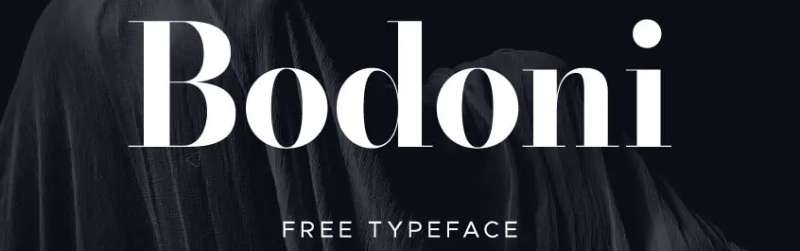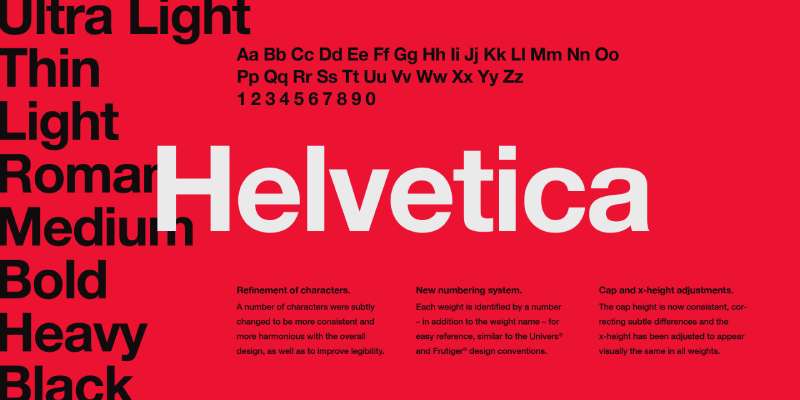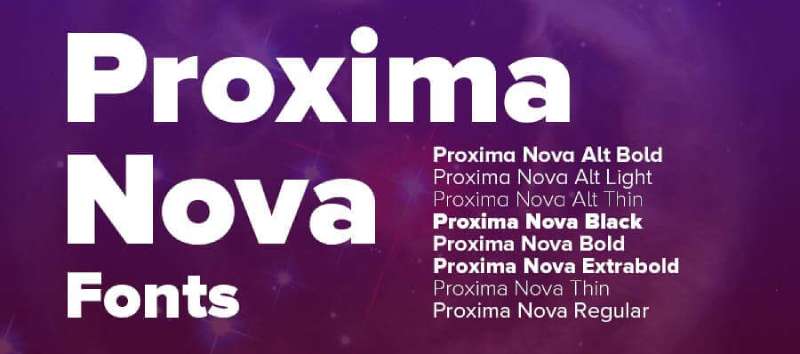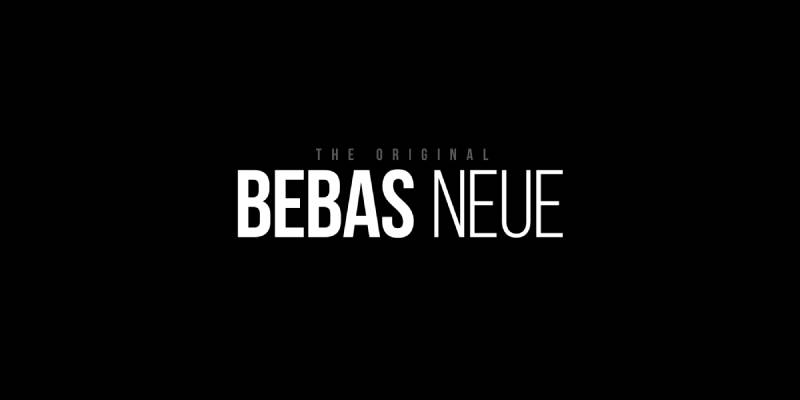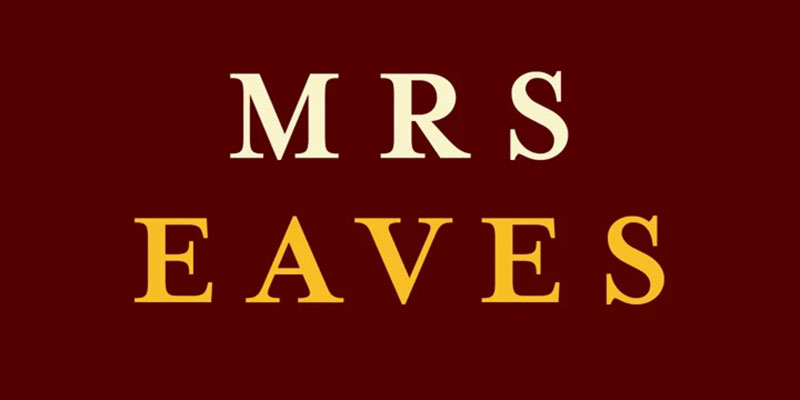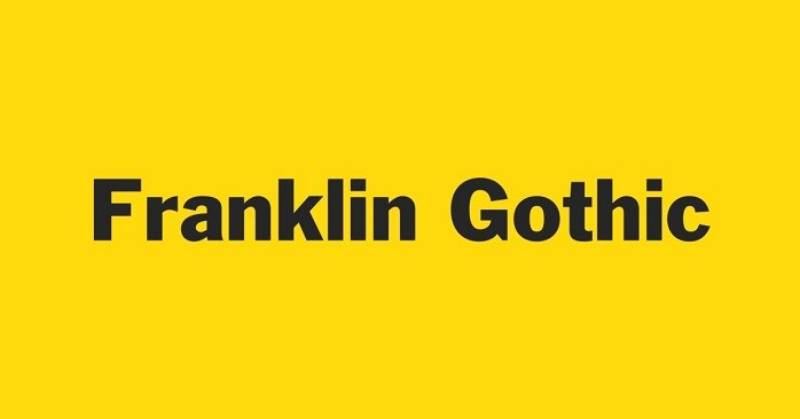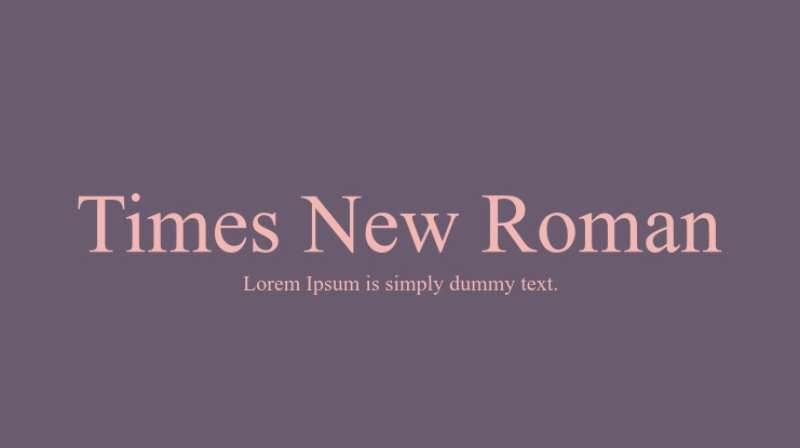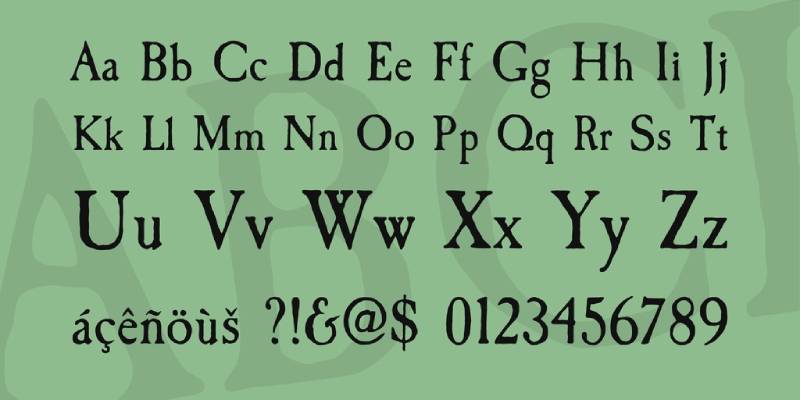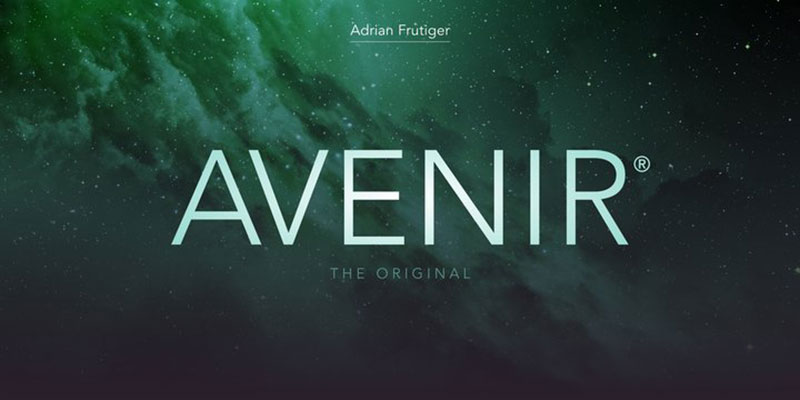
A single typeface choice can make readers flip past your magazine cover or stop and pick it up. That’s the reality of editorial design.
Finding the best magazine fonts means balancing readability, personality, and print performance. Whether you’re designing a fashion publication or a news weekly, your typography decisions affect everything from the masthead to body text.
This guide covers serif and sans-serif options that actually work in print. You’ll learn which typefaces top designers trust for headlines, which fonts handle small text well, and how to pair them effectively.
We’ll look at classics like Garamond and Bodoni alongside modern choices like Gotham and GT Sectra.
The Best Magazine Fonts
| Font Name | Classification & Best Use | Key Characteristics | Readability Context |
|---|---|---|---|
| Didot | Serif, Display Headers | High contrast, dramatic hairline serifs, vertical stress | Large sizes, luxury fashion |
| Bodoni | Serif, Display Headers | Extreme thick-thin contrast, geometric serifs, elegant | Headlines, premium editorial |
| Helvetica | Sans-serif, Universal | Neutral, clean, high x-height, tight spacing | All sizes, modernist layouts |
| Proxima Nova | Sans-serif, Body & Headers | Geometric with humanist warmth, versatile weights | Digital-first publications |
| Bebas Neue | Sans-serif, Display Only | All-caps condensed, bold impact, narrow width | Short headlines, youth culture |
| Montserrat | Sans-serif, Headers & Body | Geometric, urban-inspired, open apertures | Web and print, contemporary |
| Mrs Eaves | Serif, Body Text | Transitional, long ascenders, romantic ligatures | Long-form text, classical feel |
| Trade Gothic | Sans-serif, Headers | Grotesque style, industrial, irregular widths | Editorial headlines, archival |
| Franklin Gothic | Sans-serif, Headers | American grotesque, condensed, strong presence | News headlines, traditional |
| Garamond | Serif, Body Text | Old-style, refined serifs, excellent legibility | Extended reading, timeless |
| Times New Roman | Serif, Body Text | Transitional, space-efficient, newspaper heritage | Dense text, formal content |
| Baskerville | Serif, Body Text | Transitional, high contrast, sharp serifs, crisp | Premium editorial, clarity |
| Caslon | Serif, Body Text | Old-style, organic irregularities, British heritage | Long articles, warm tone |
| Neue Haas Grotesk | Sans-serif, Universal | Original Helvetica design, refined neutrality | Modern branding, minimal |
| Futura | Sans-serif, Headers | Geometric, circular forms, 1920s Bauhaus style | Display text, art direction |
| Avenir | Sans-serif, Body & Headers | Humanist geometric, balanced, organic warmth | Versatile, friendly tone |
| Brandon Text | Sans-serif, Body Text | Humanist, rounded terminals, approachable | Digital magazines, friendly |
| Mercury Text | Serif, Body Text | Modern scotch roman, sturdy, screen-optimized | Digital-first body copy |
| Goudy Old Style | Serif, Body Text | Old-style, calligraphic, diamond-shaped dots | Traditional publishing, charm |
| Minion Pro | Serif, Body Text | Modern old-style, highly legible, Adobe standard | Professional publishing |
Didot
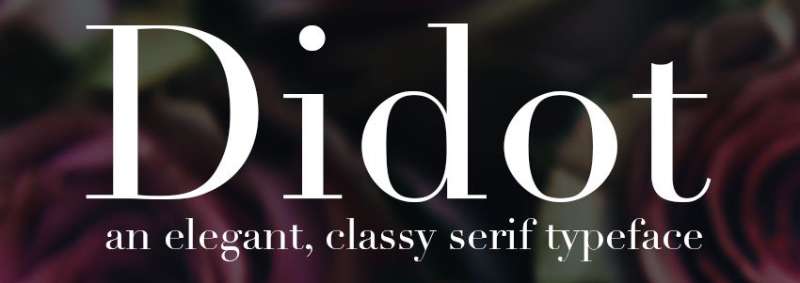
Didot’s the neoclassical serif font designed by Firmin Didot between 1784 and 1811. French printing excellence distilled into hairline serifs and extreme thick-thin contrast.
Visual Characteristics
The letterforms practically scream modernity with their vertical stress. Hairline serifs sit flat and unbracketed against thick vertical strokes, creating that signature Didone look.
Modern revivals include Linotype’s version by Adrian Frutiger (bundled with macOS) and HTF Didot by Jonathan Hoefler for H&FJ.
Hoefler anticipated hairline degradation at smaller sizes by using heavier strokes in text versions.
Readability Performance
Body text at 9-12pt demands optical sizes. Without them, you get “dazzle” where thick verticals pull attention away from the thin strokes that actually define which letter is which.
The extreme stroke contrast means digital use poses challenges. Use display versions for headlines only.
Each metal type size was custom-cut back in Didot’s day. Digital fonts made printing the same design at any size possible, but optical sizing remains critical with Didone designs.
Editorial Applications
Fashion magazines worship this thing. Vogue has used Didot on covers since 1955, and Harper’s Bazaar ran with it for decades.
Best for:
- Fashion editorial covers
- Luxury brand magazines
- Headlines and pull quotes
- Display typography above 18pt
CBS used a custom “CBS Didot” version alongside their eye logo for years. Zara’s controversial 2019 rebrand? Didot with uncomfortably tight kerning.
Pairing Recommendations
Pair Didot headlines with humanist sans-serifs for body copy.
Works beautifully with Gill Sans, Futura, or Avenir for contrast. The geometric simplicity balances Didot’s ornate drama.
The distinctive letterforms aid recognition in reading. Characters don’t blur together despite the small x-height.
Extended reading comfort good at proper sizes. The warmth and personality make long texts pleasant.
Digital versions sometimes increase x-height slightly to improve performance at smaller sizes. Purists complain, but readers benefit.
Editorial Applications
Vintage aesthetic, nostalgic content, heritage brands. Anywhere Arts and Crafts movement associations help.
Strong for:
- Historical and heritage magazines